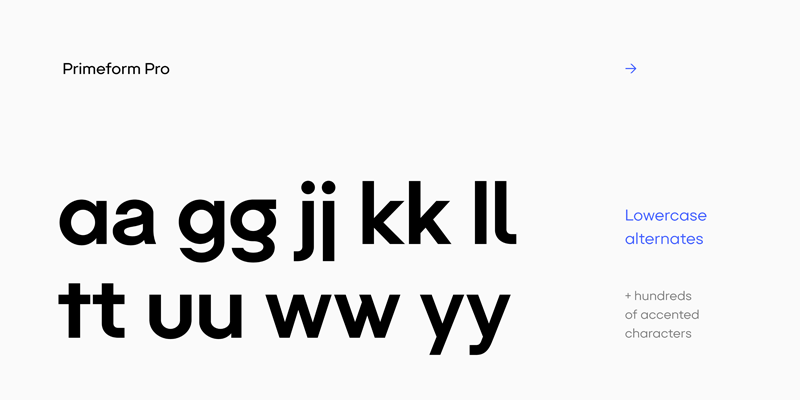
Purchase the full version here: https://www.myfonts.com/collections/primeform-pro-font-punchform The most versatile geometric font ever is here. With 421 alternative characters and 19 stylistic sets, you get unlimited power to take your creativity to the next level. The first typeface of its kind, Primeform Pro is meticulously designed to adapt its personality to any project. Primeform Pro is the smartest choice for any creative project. With a single click, you can change its typographic personality and adapt it to your desired style. Choose between 3 predefined styles or create your own style by combining the hundreds of alternate characters available. OPEN TYPE FEATURES (available in the full version) Access All Alternates (aalt) Stylistic Alternates (salt) 19 Stylistic Sets (ss01 � ss19) Localized Forms (locl) Case-Sensitive Forms (case) Standard Ligatures (liga) & Discretionary Ligatures (dlig) Slashed Zero (zero) Proportional Figures (pnum) Tabular Figures (tnum) Subscript (subs) & Superscript (sups) Numerators (numr) & Denominators (dnom) Fractions (frac) Ordinals (ordn) Glyph Composition/Decomposition (ccmp) LANGUAGE SUPPORT (available in the full version) 317 Latin Languages 2 Greek Languages 15 Cyrillic Languages TECH SPECS (for full version) Glyph Count: 1185 Format: OpenType CFF The fonts may only be used for trial purposes: your own evaluation, to get approval from a client, or in a student project. Any public-facing use, including professional (non-academic) work by students, requires the purchase of an appropriate license. By downloading the linked files, you agree to these terms. More... |